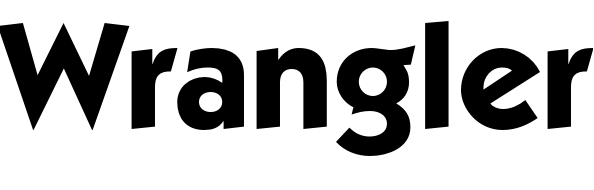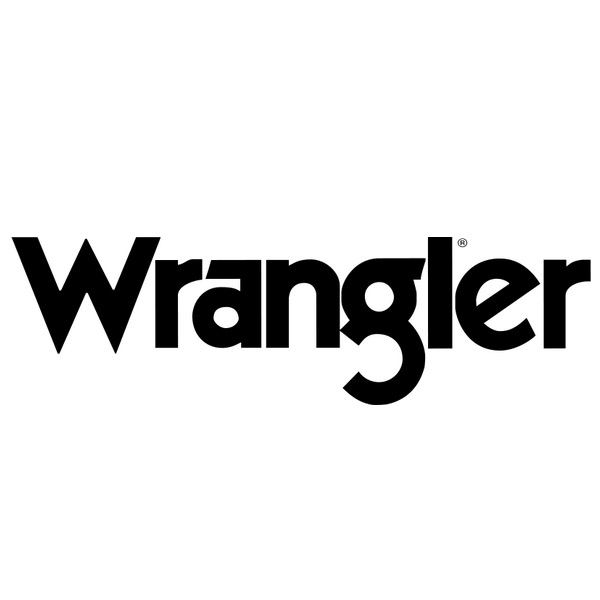
Wrangler Font
ApparelWrangler is a clothing brand that is known for its jeans and other casual apparel. It was founded in 1904 as a producer of western wear, and its products are now sold in more than 100 countries around the globe.
Wrangler's logo appears custom-designed, but it was likely based on Rudolf Koch's geometric sans-serif typeface ITC Kabel. You can view more details about the typeface here.